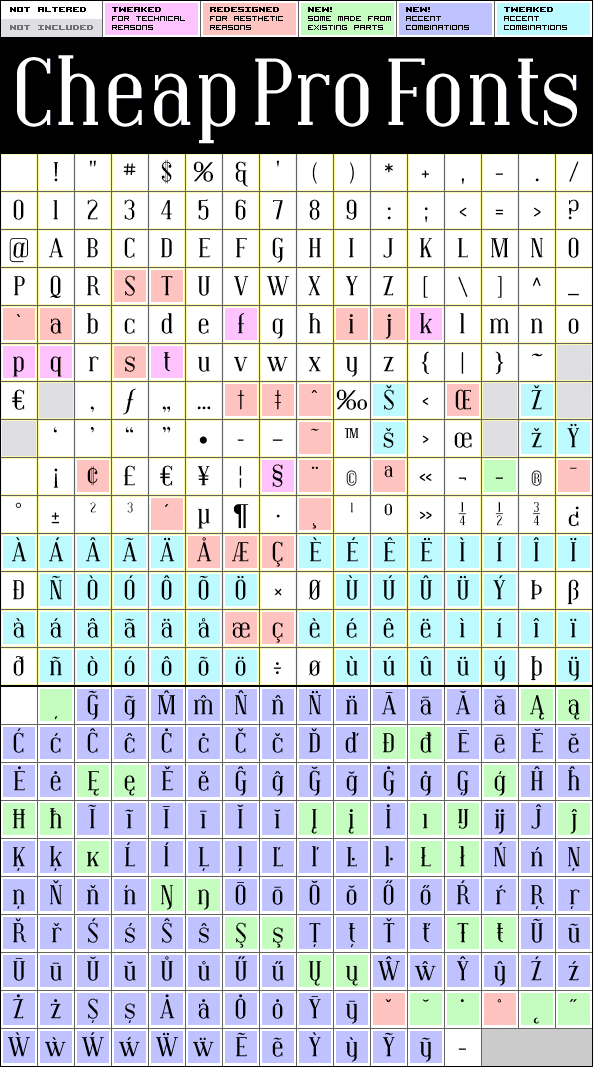
A wonderful and elegant typeface from Derek Vogelpohls skilled hands. Little work was needed to rework this neat font to a professional standard - I have tweaked a few letterforms, redone the kerning, and redesigned and expanded the diacritics. Result! :)
SF Covington Pro is a professionally reworked font that contains an extended character set for setting text in 65 languages requiring more than the basic A-Z!